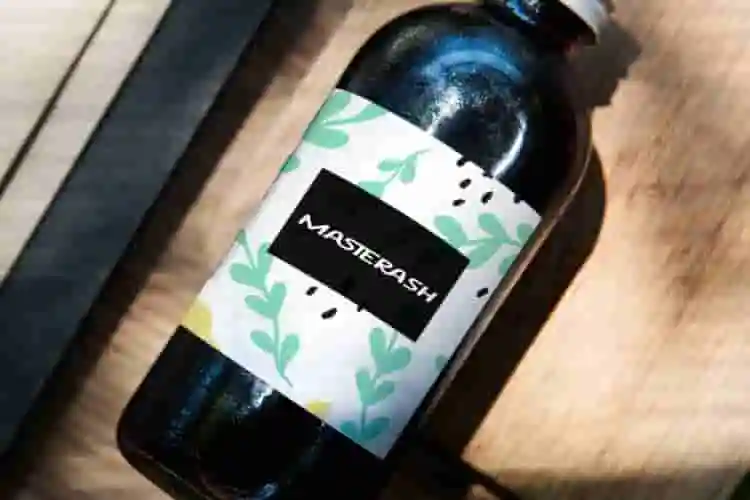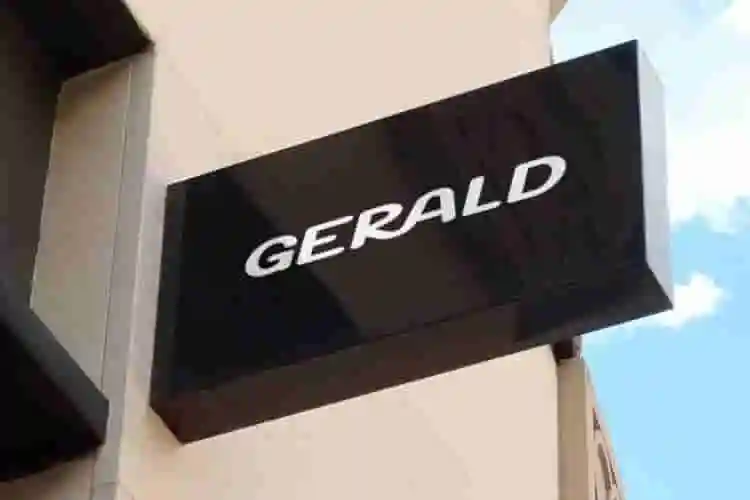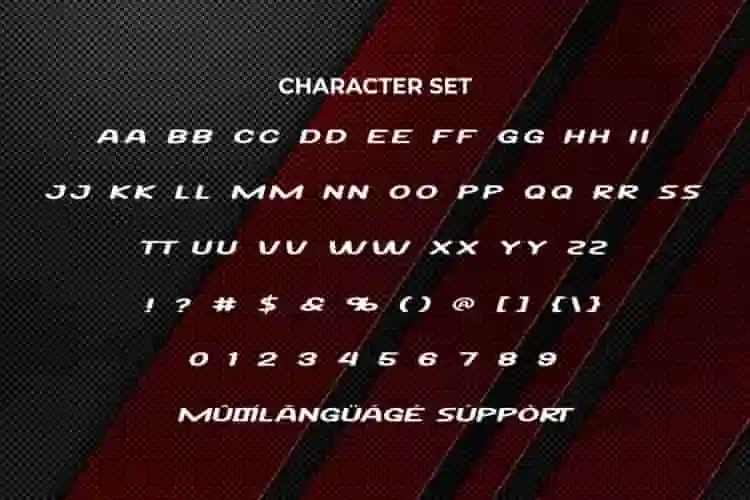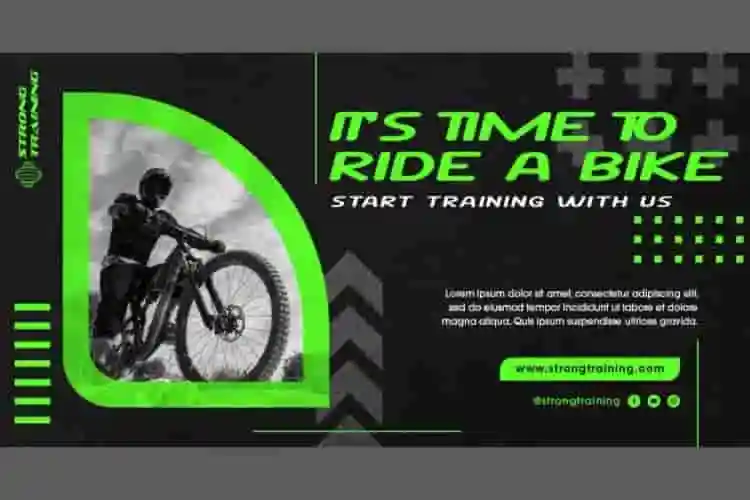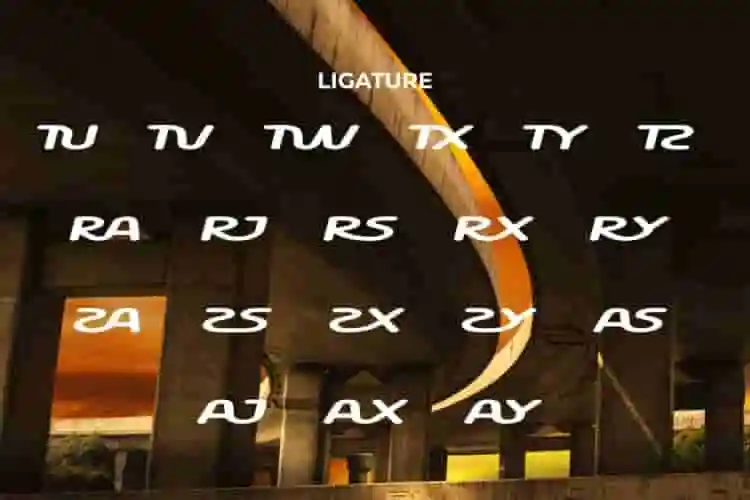
Masterash Display Font is a fun sporty strong font with a racing sports theme. Bold and sporty racing typeface crafted for modern projects.
Masterash Display Graffiti Font comes with a full set of ALL CAPS for Uppercase and Lowercase letters, Number, Punctuation, Symbol and Ligature. Racing sports themed fonts are truly super stylish, never disappoint and never go out of style!! Its cool and professional look adapts effortlessly to a wide range of industries, from sports and fashion to publishing, gaming, advertising, and graphic design.
Masterash Font a playful typeface with unique decoration in each character. Combine different characters for a bespoke, handcrafted feel. It’s tested to work well in the Adobe Apps (Illustrator, Adobe InDesign, Adobe Photoshop) even work on Microsoft Word. All of these characters are available through the glyph panel, moreover each letter has its own unicode (PUA) so you can access all the characters easily.